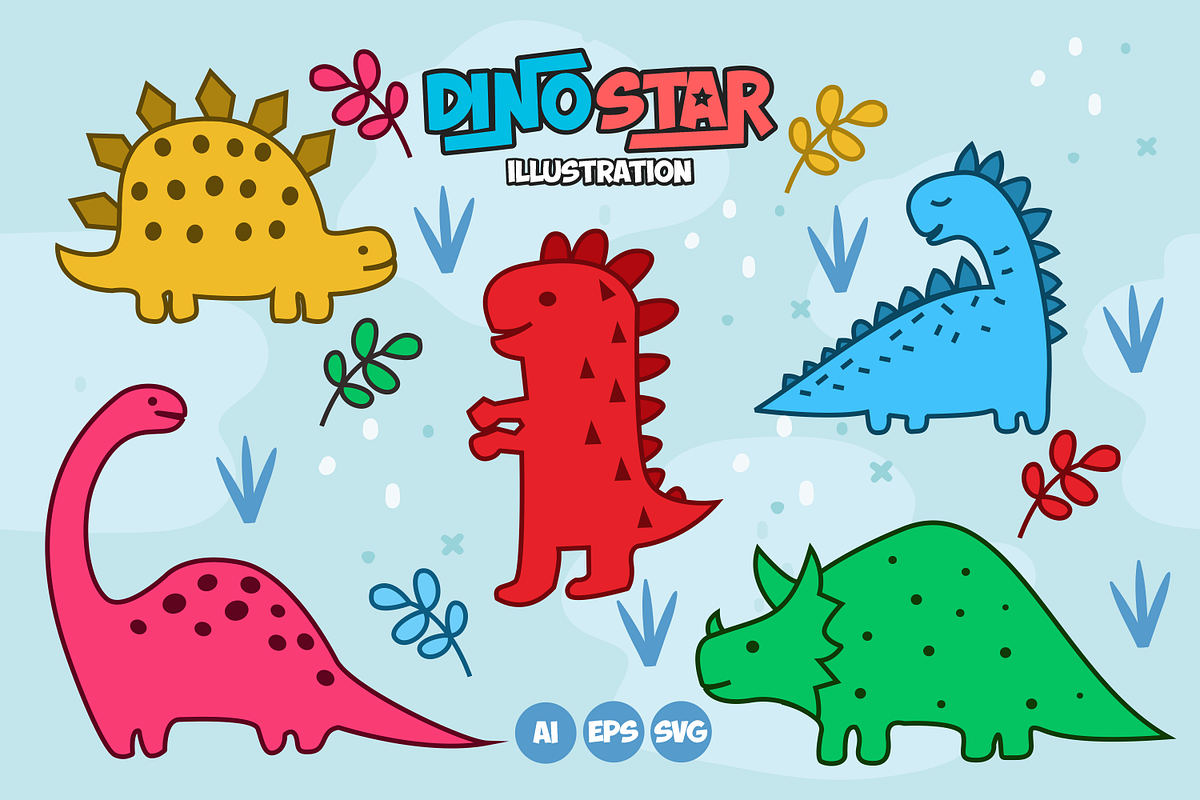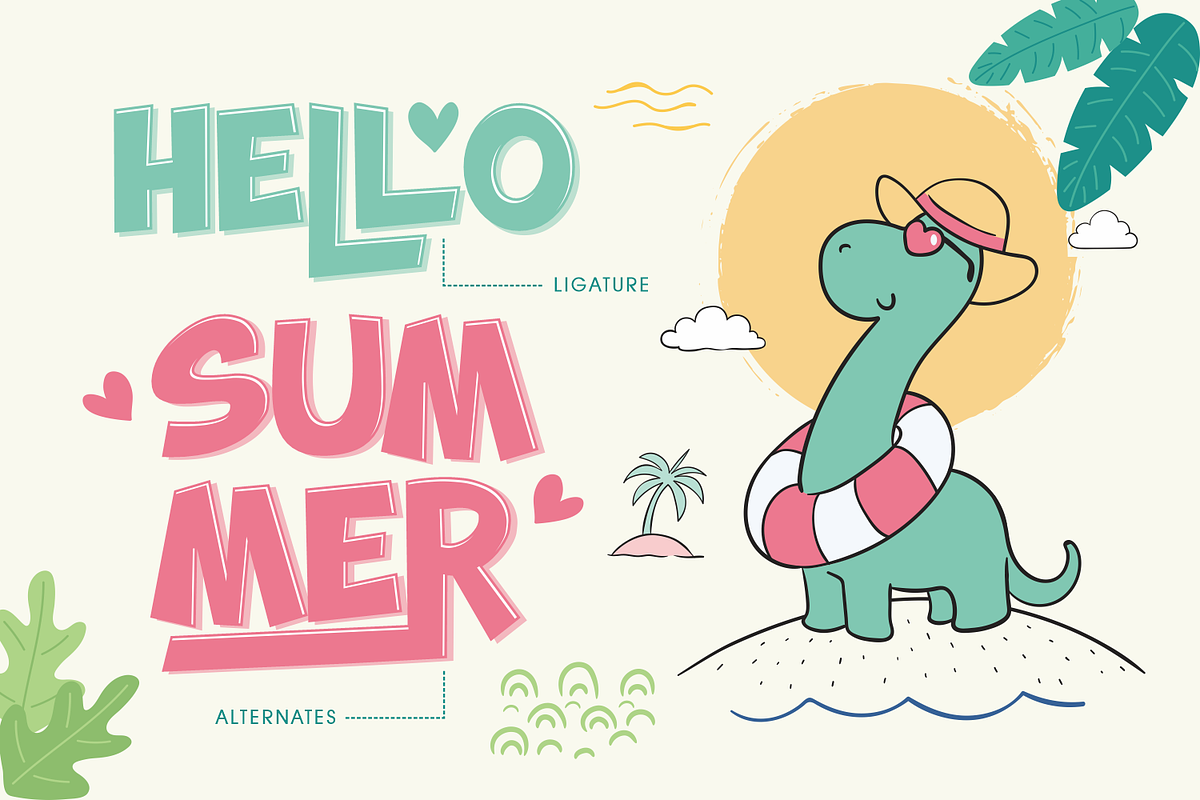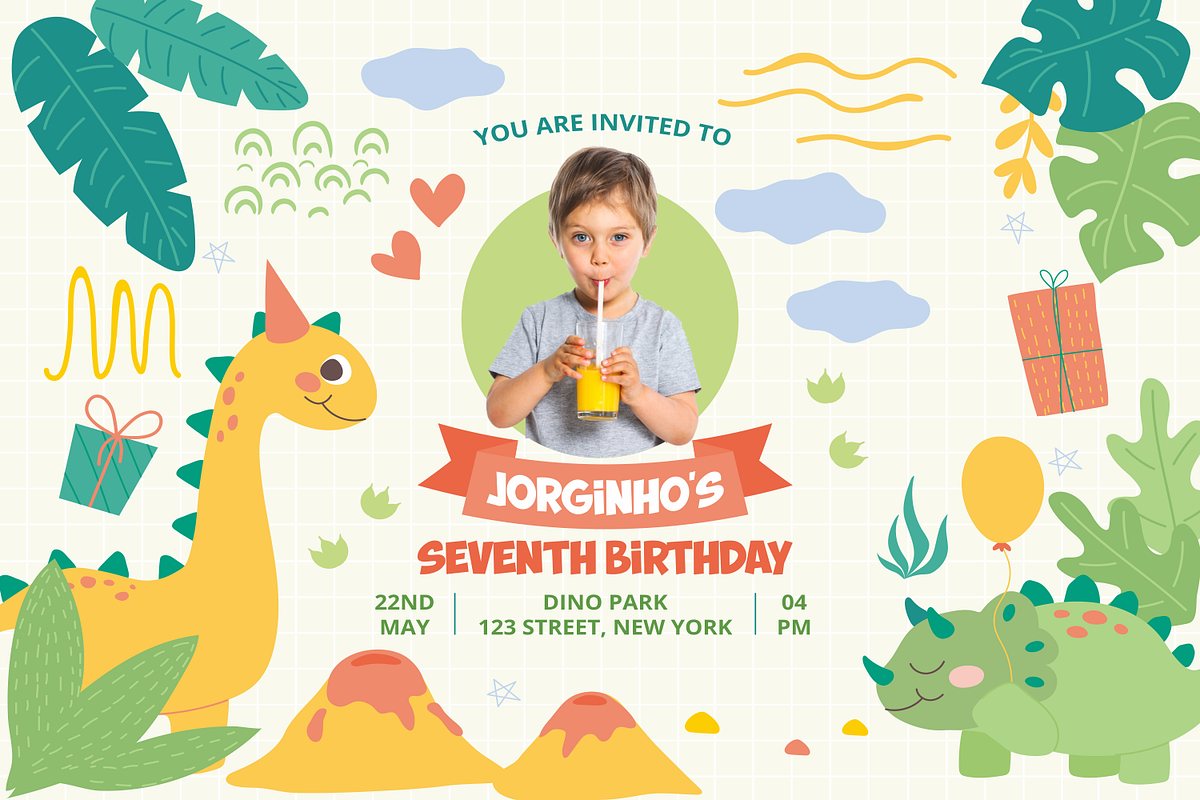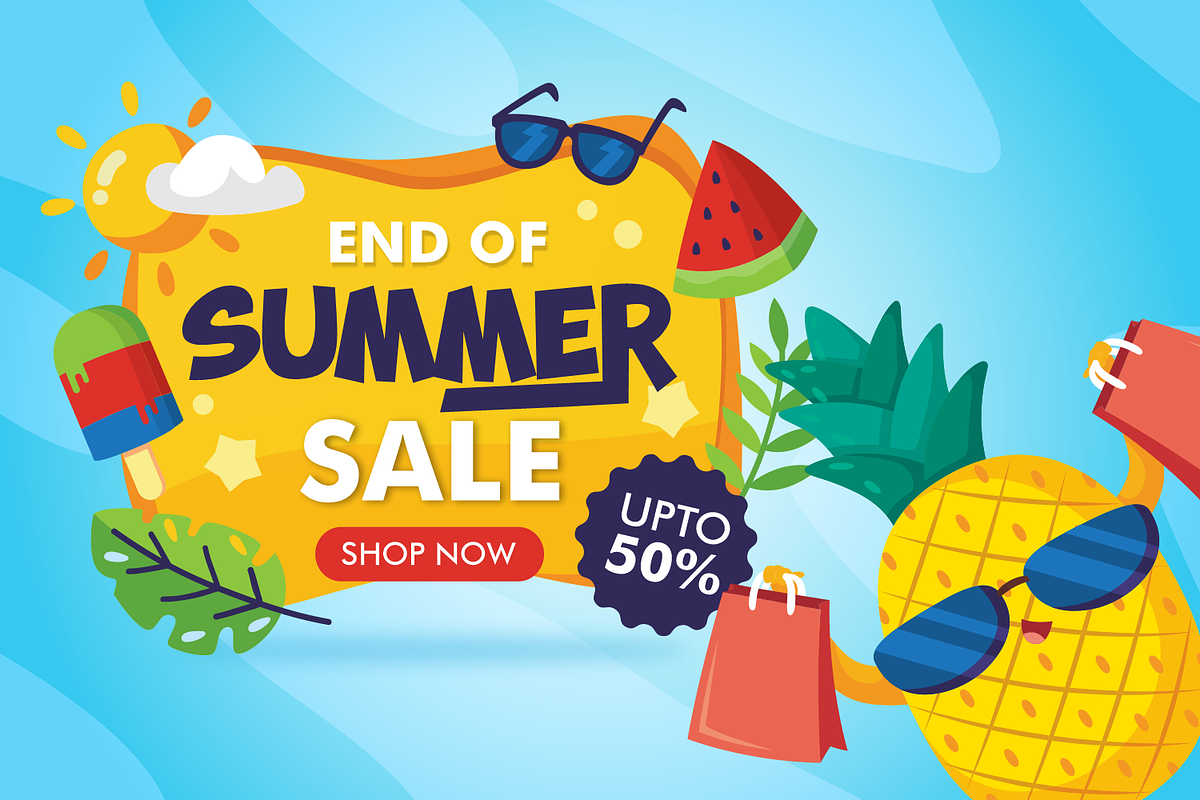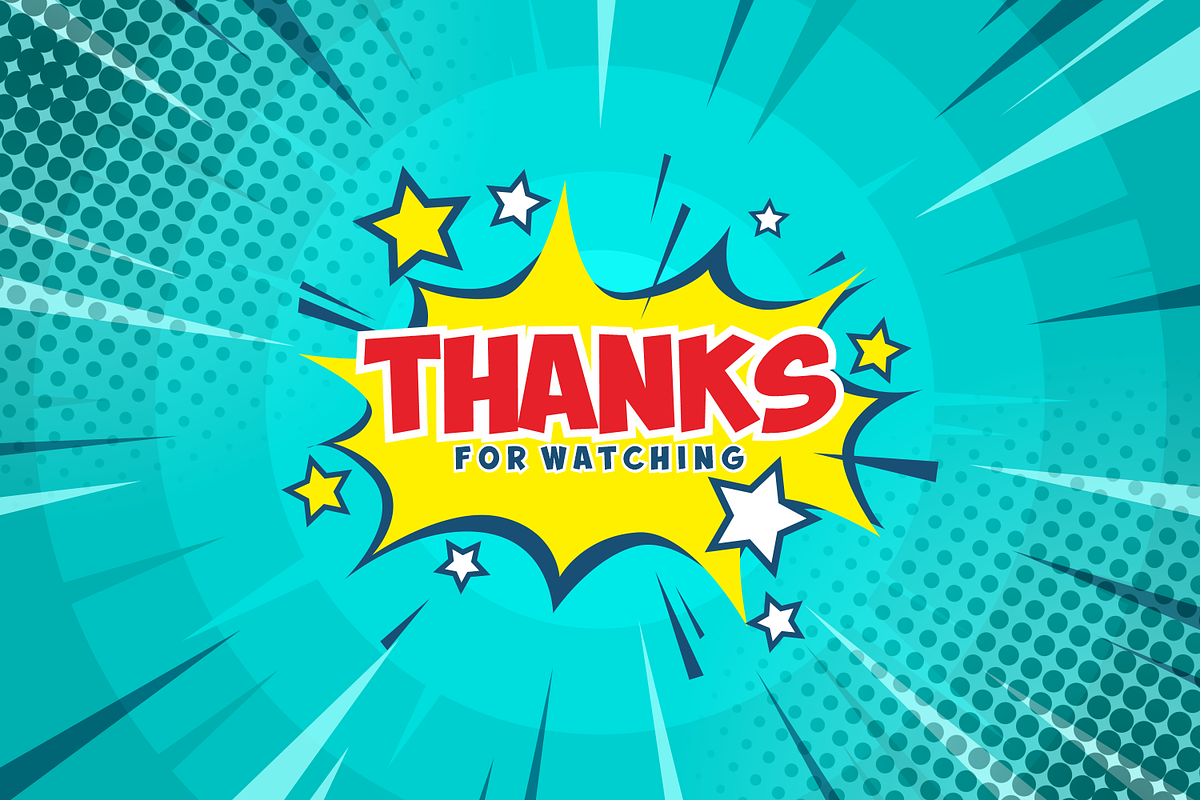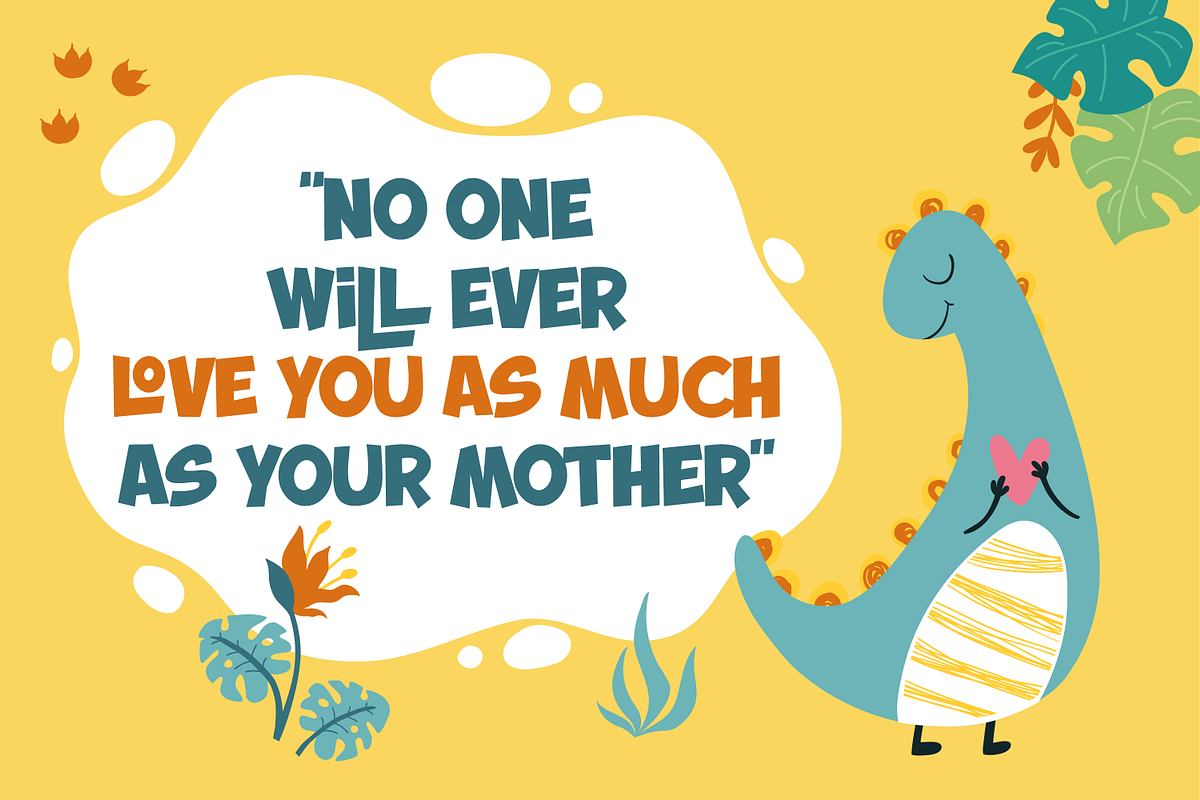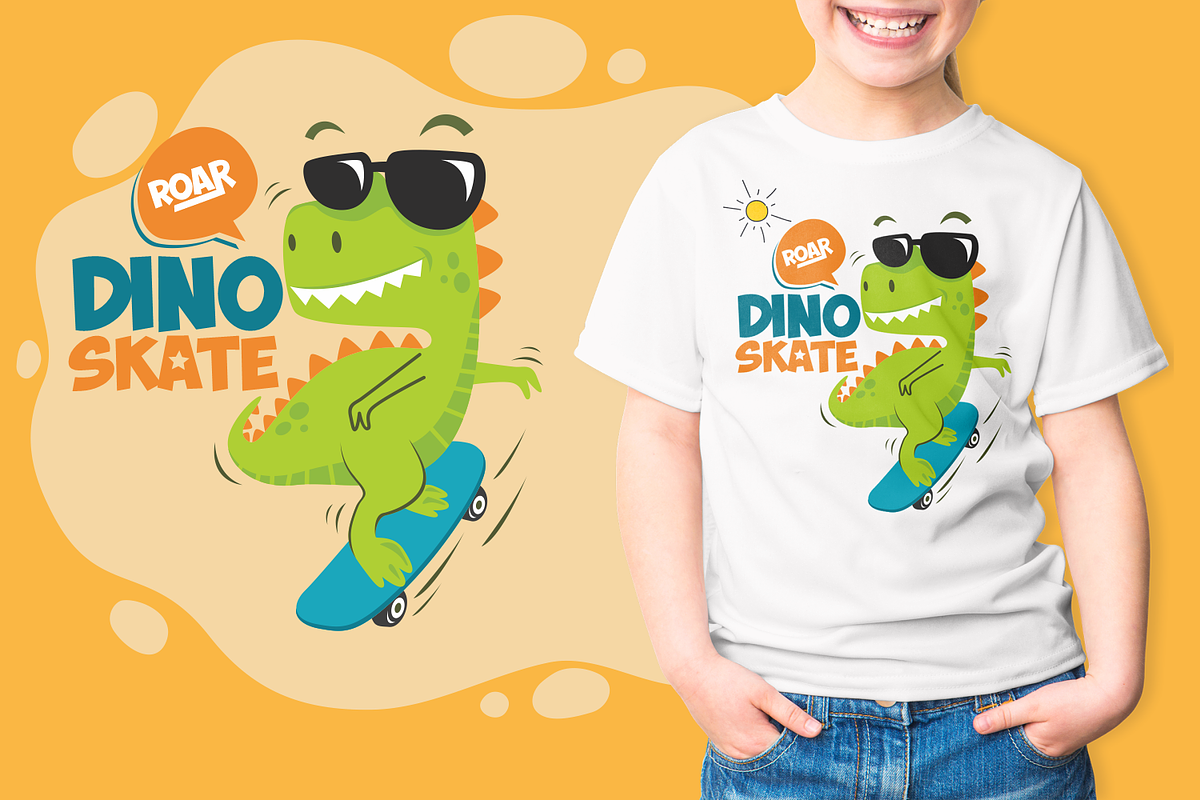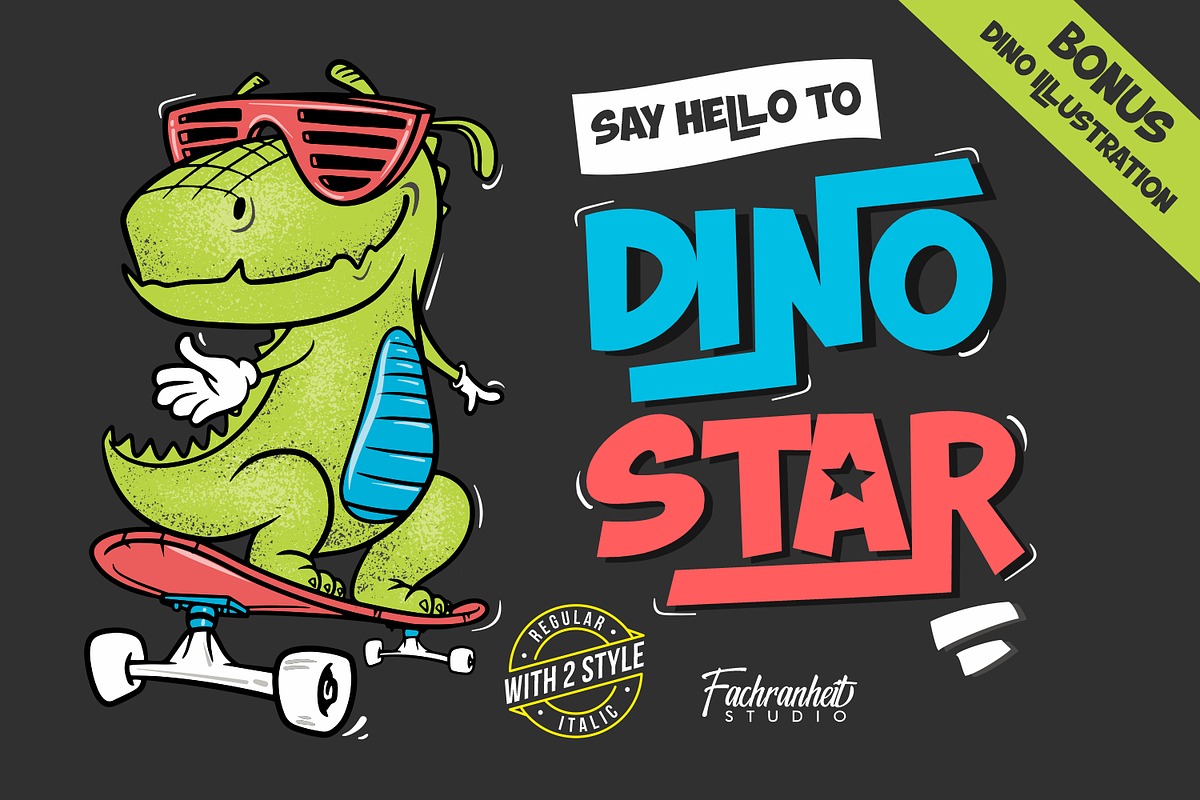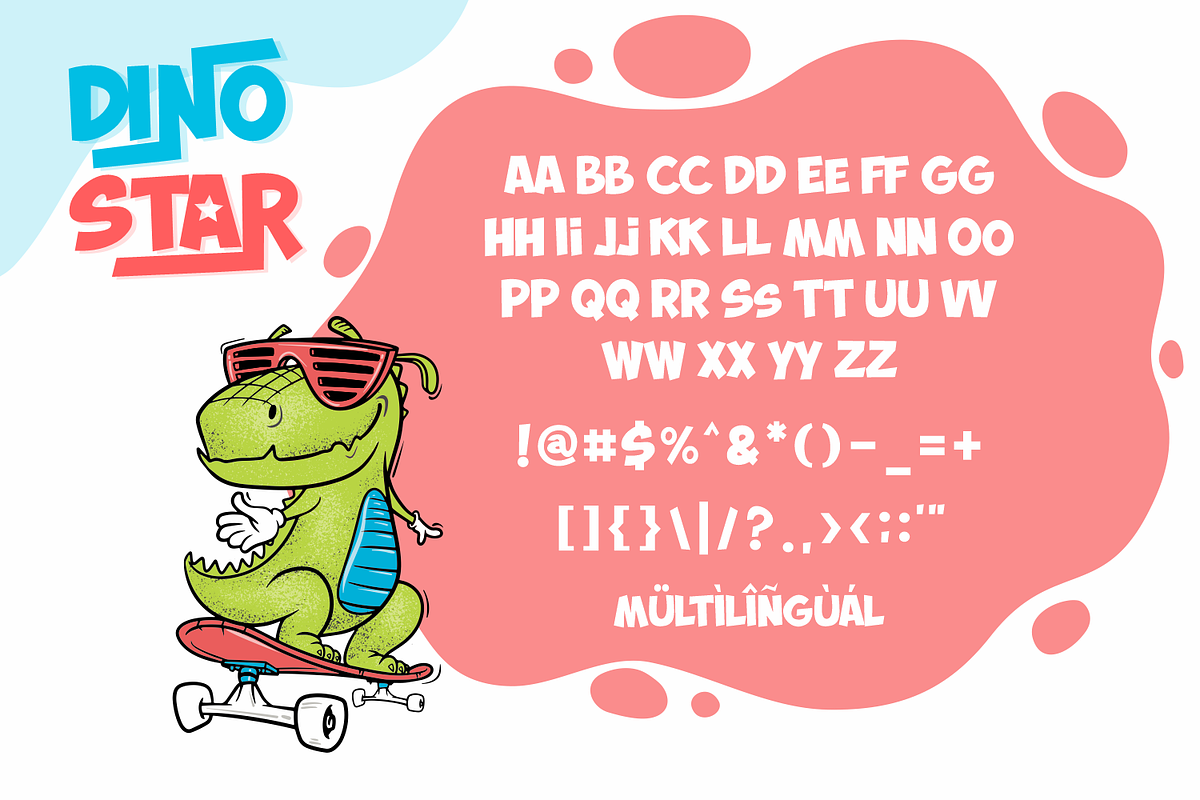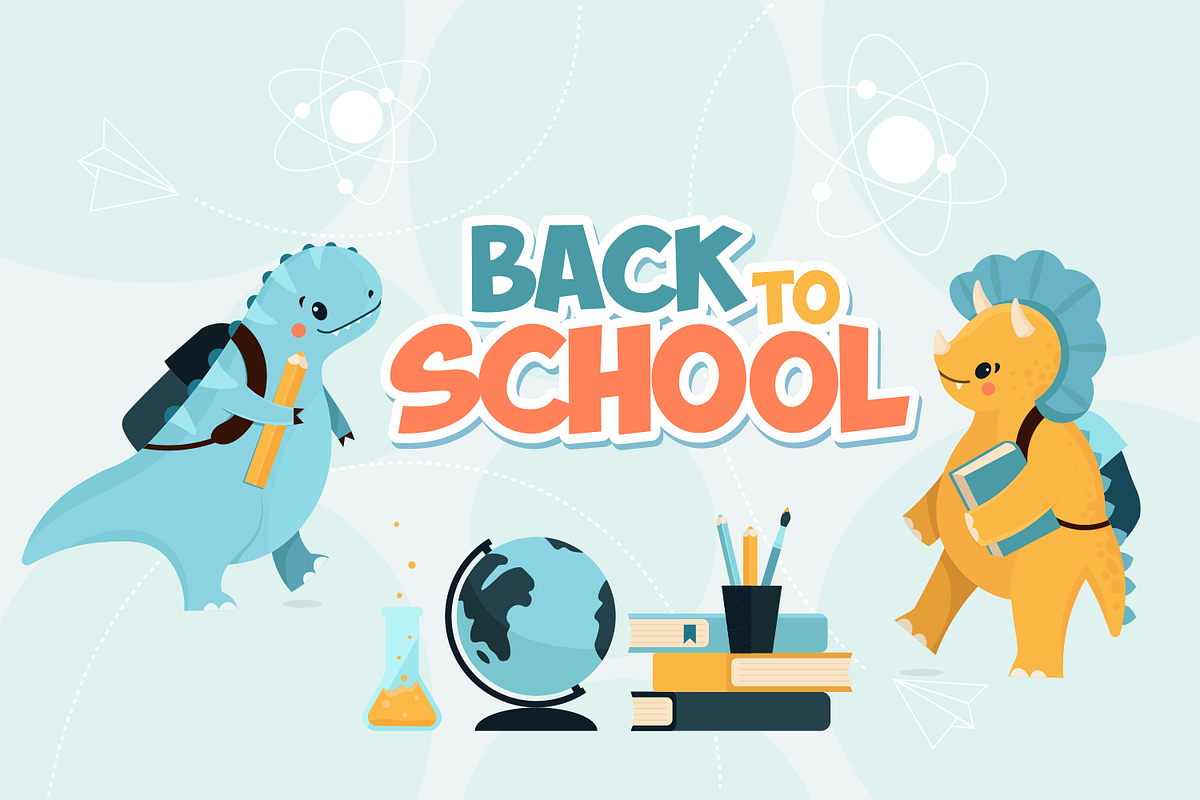
Dino Star
Dino Star is a funny and cute display font, Dino Star is the perfect font for adding a cute and playful touch to your designs and make it very suitable for various purposes such as quotes, t-shirt designs, flyers, youtube channels, labels, logos etc.